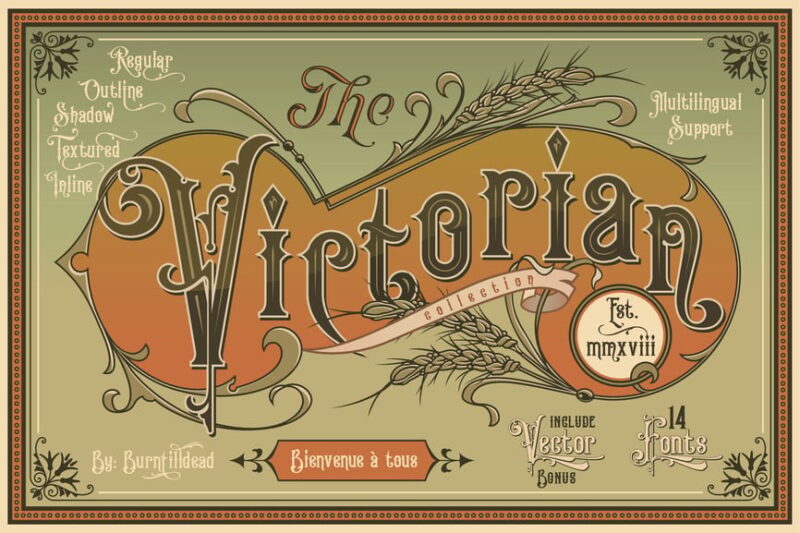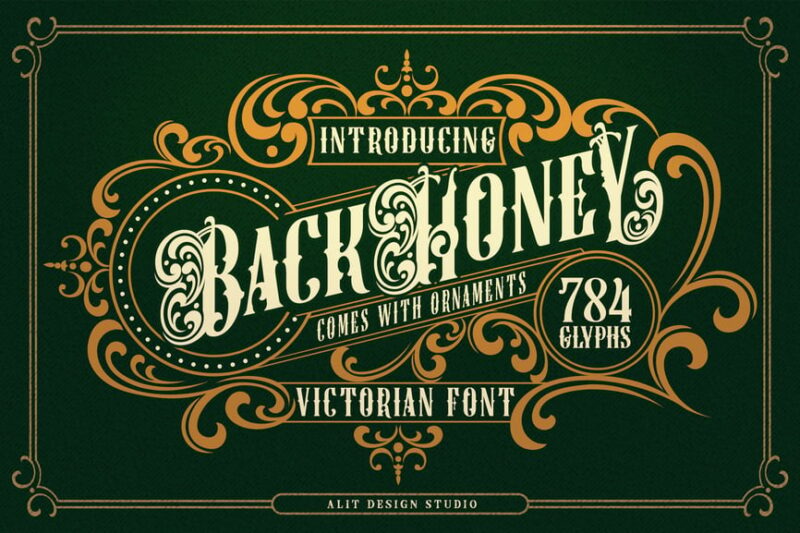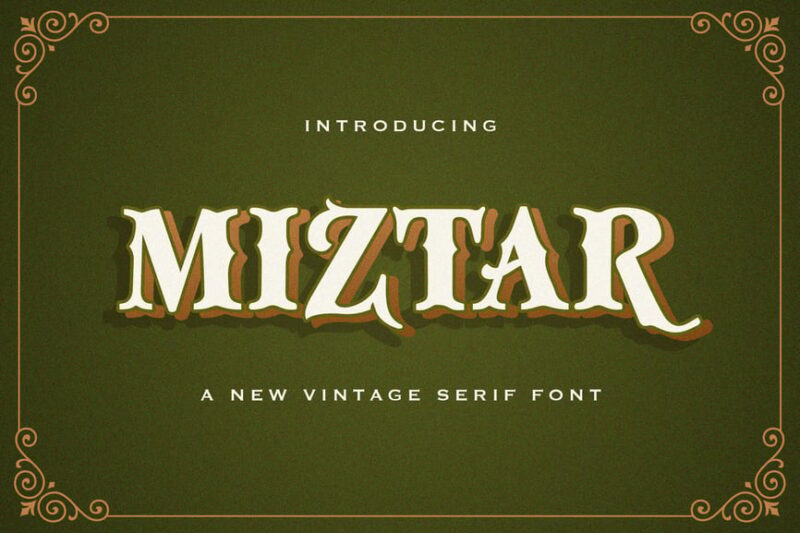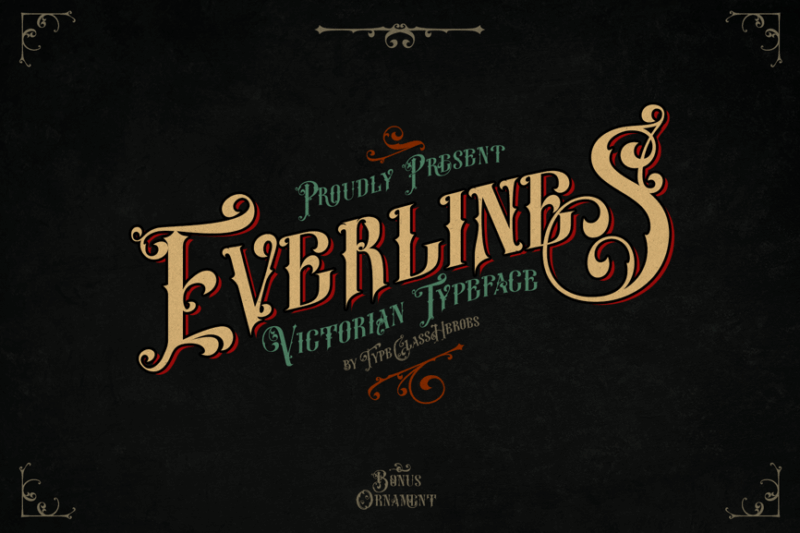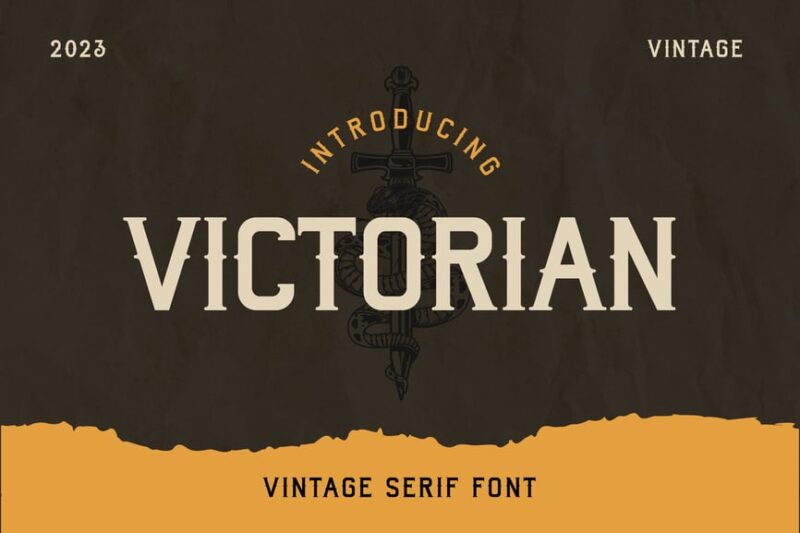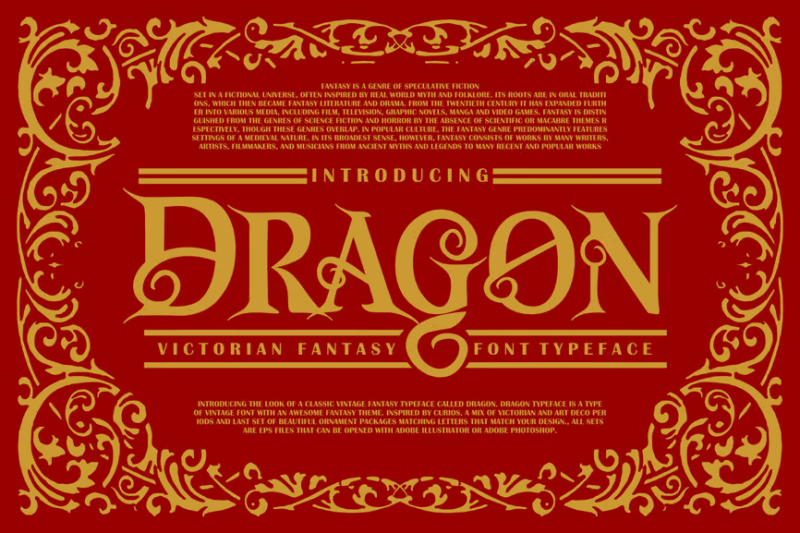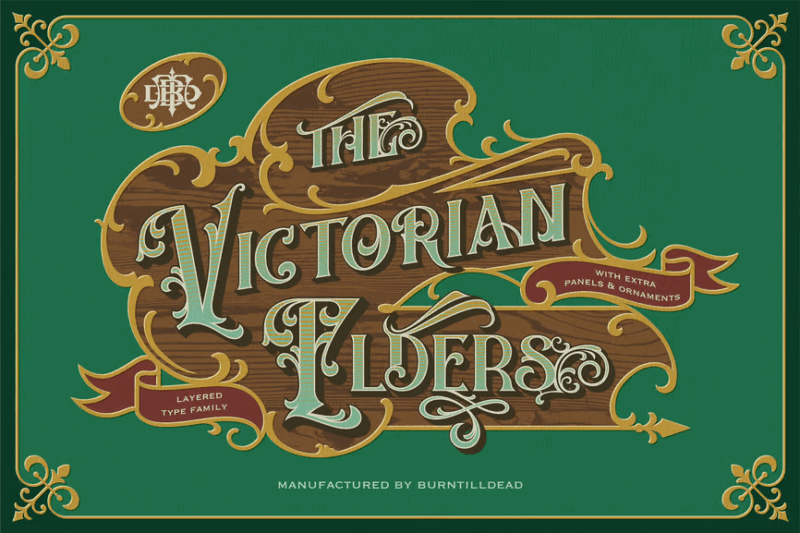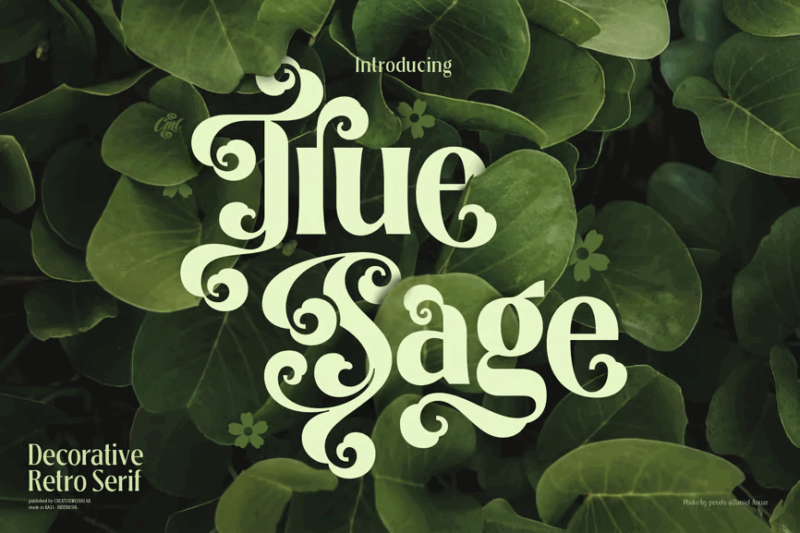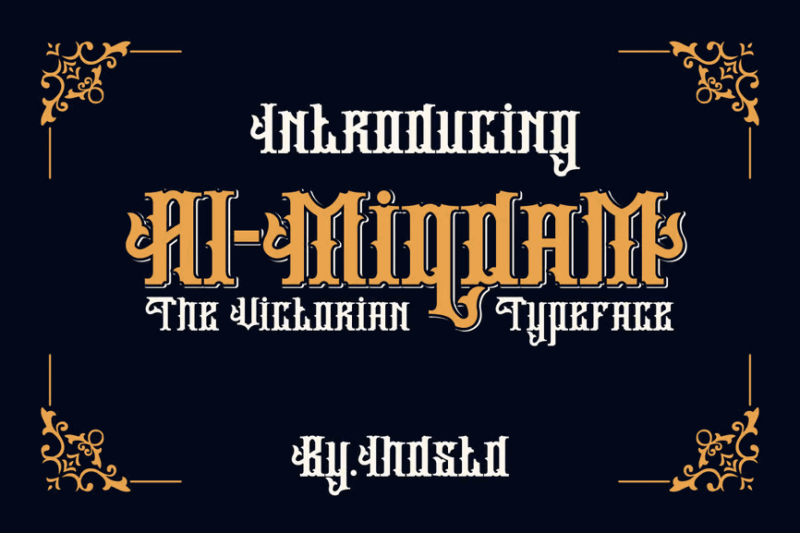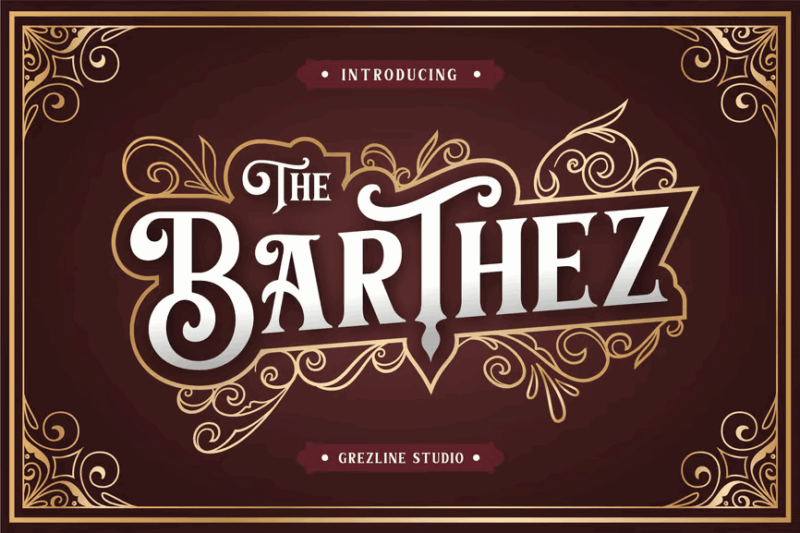
34 Victorian Fonts That Add Vintage Elegance to Your Designs
There’s something magical about the way the elaborate typefaces of Victorian Fonts transport us back to an era of refined craftsmanship and artistic flourish.
Victorian fonts capture the essence of a bygone time when typography wasn’t just functional—it was an art form. From the intricate serifs to the decorative swashes, these fonts tell stories of an age defined by its attention to detail and appreciation for ornamental beauty.
In this deep dive, we’ll explore the most captivating Victorian fonts that can add a touch of vintage elegance to your design projects. Whether you’re crafting invitations for a themed event, designing a vintage-inspired logo, or adding period authenticity to a historical publication, these fonts will help you capture the spirit of the Victorian era.
The Most Elegant Victorian Fonts of 2026
I’ve curated a list of my favorite Victorian fonts that perfectly capture the ornate style of the era. Each one brings its own unique character while maintaining that unmistakable 19th-century charm:
Victorian Heritage
Victorian Heritage is an elegant gold font that exudes classic charm. Its decorative elements and ornate details make it perfect for vintage-inspired designs. This font is ideal for creating sophisticated headlines and titles with a touch of nostalgia.
Victorian Fonts Collection
This collection offers a variety of Victorian-era inspired serif and decorative fonts. With layered options and symbols included, it provides designers with a versatile toolkit for creating authentic period pieces. These luxurious fonts are perfect for vintage branding, labels, and packaging design.
Black Honey Victorian Font
Black Honey is a bold and dramatic Victorian-style serif font. Its strong display characteristics and old-world charm make it ideal for creating impactful headlines. This font is perfect for vintage-themed posters, book covers, and logo designs.
Miztar – Victorian Style Font
Miztar - Victorian Style Font
Miztar is a decorative Victorian-style font with a strong display presence. Its ornate details and elegant curves capture the essence of Victorian typography. This font is excellent for creating eye-catching titles and headers in vintage-inspired designs.
Everlines Victorian Font
Everlines is a decorative Victorian font with a calligraphic flair. Its flowing lines and ornate details make it perfect for creating elegant and sophisticated designs. This typeface is ideal for invitations, luxury branding, and vintage-themed packaging.
Victorian Vintage Serif Font
This Victorian Vintage Serif Font combines classic serif elements with a retro touch. Its timeless appeal makes it versatile for various design projects. The font is perfect for creating vintage-inspired logos, headlines, and editorial designs.
Dragon | Victorian Font Typeface
Dragon is a versatile Victorian-inspired typeface that includes serif, sans-serif, and decorative variations. Its modern twist on Victorian typography makes it suitable for contemporary designs with a vintage flair. This font family is ideal for branding, editorial, and web design projects.
The Victorian Elders
The Victorian Elders is a classic serif font that embodies the elegance of Victorian-era typography. Its ornate details and refined appearance make it perfect for creating sophisticated designs. This font is excellent for high-end branding, book covers, and vintage-inspired posters.
Victorian Letterhead
Victorian Letterhead is a decorative serif font designed to mimic vintage letterhead styles. Its ornate details and classic charm make it perfect for creating authentic period-inspired designs. This font is ideal for stationery, invitations, and vintage-themed branding projects.
True Sage – Modern Vintage Victorian font
True Sage - Modern Vintage Victorian font
True Sage is a modern take on Victorian typography, blending vintage elements with contemporary design. The decorative features and serifs of this truly elegant font make it versatile for various projects. This font is perfect for creating unique logos, headlines, and packaging designs with a vintage twist.
Almiqdam Victorian Typeface
Almiqdam is a decorative Victorian typeface that captures the essence of vintage typography. Its ornate details and elegant serifs make it perfect for creating sophisticated designs. This font is ideal for luxury branding, wedding invitations, and vintage-inspired signage.